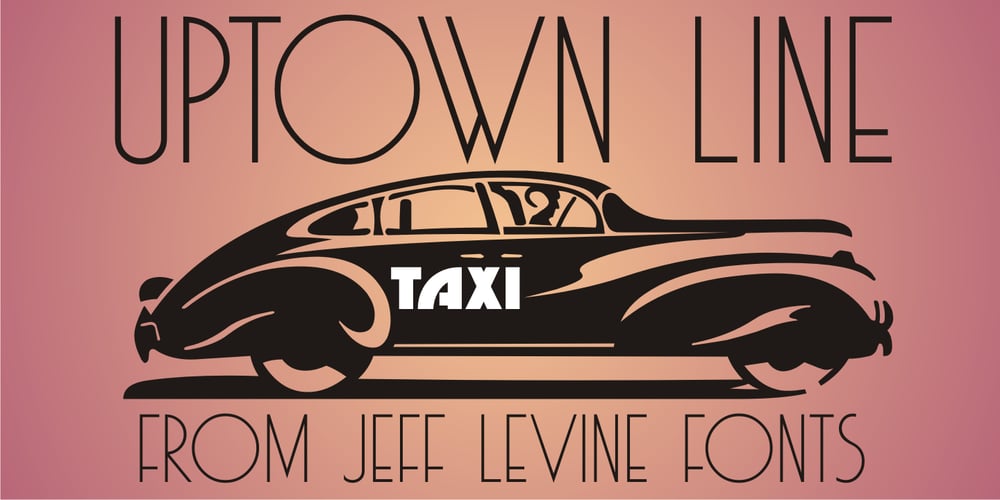
Uptown Line JNL
Uptown Line JNL font
Uptown Line JNL Font Family was designed by Jeff Levine and published by Jeff Levine. Uptown Line JNL contains 1 styles and family package options. Ask any typical New Yorker about subway directions and they’ll tell you to take the “uptown line”, “downtown line” or “cross-town line”. Uptown Line JNL is yet another variation of the Art Deco monoline style of lettering prevalent during the 1930s and 1940s, and is based on titling from vintage sheet music for a Johann Strauss classical piece.